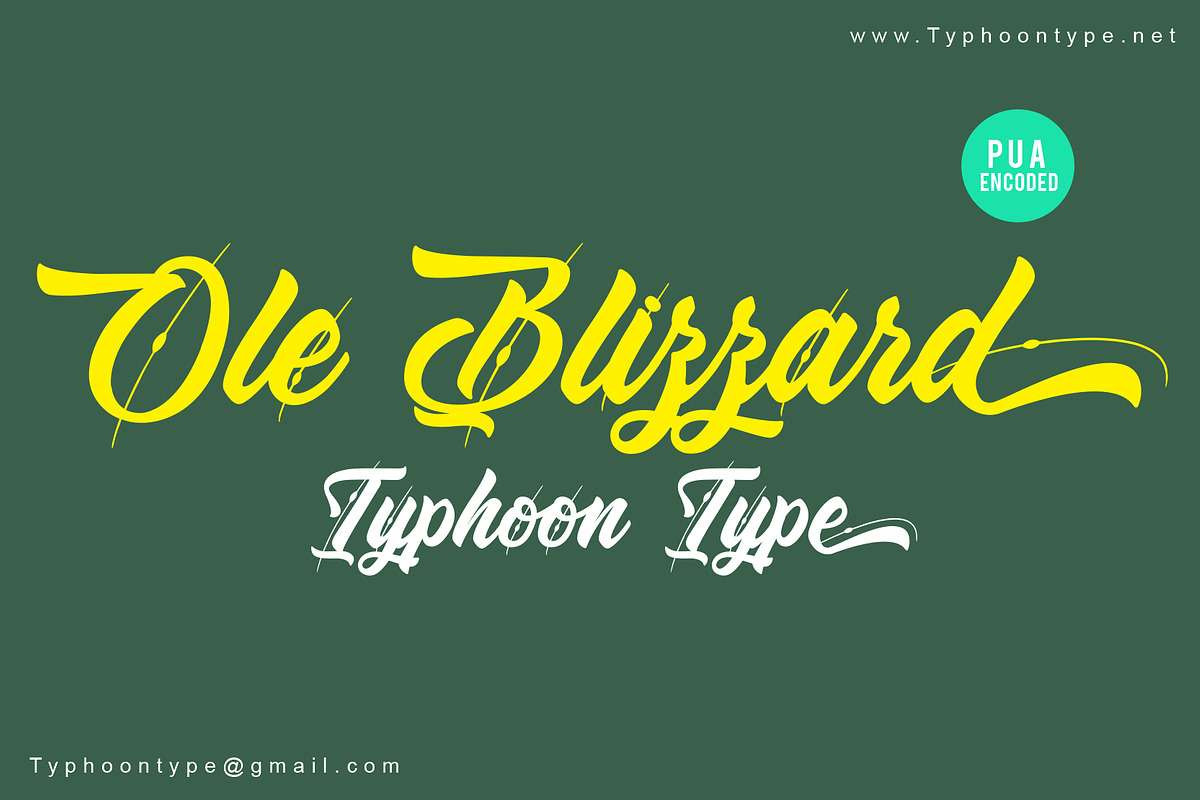
Ole Blizzard font
Ole Blizzard This font perfect for logos, name tag, advertising, product packaging, clothing, social media & greeting cards.
Why Ole Blizzard font is worth a look
Ole Blizzard font by TyphoonStudio fits naturally into Branding, posters, packaging, typography.